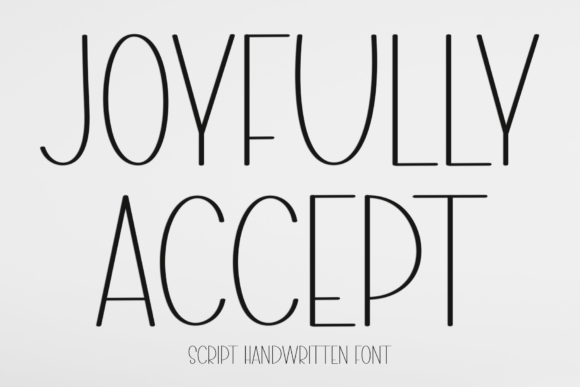
Discover the Versatility of Joyfully Accept Font: A Modern Sans-Serif Marvel
In the realm of typography, fonts play a pivotal role in conveying messages, evoking emotions, and enhancing visual appeal. Among the myriad of fonts available, Joyfully Accept stands out as a cool and modern sans-serif font that has been gaining attention for its versatility and aesthetic appeal. Whether you’re a craft enthusiast, a digital designer, a presenter, or someone who loves creating personalized greeting cards, Joyfully Accept has the potential to become your go-to font for various occasions.
What is Joyfully Accept Font?
Joyfully Accept is a contemporary sans-serif font designed to bring a touch of modernity and joy to your projects. Its clean lines, balanced proportions, and friendly demeanor make it an excellent choice for a wide range of applications. This font is not just a tool for communication; it’s an element that can add personality and emotion to your work.
Key Features of Joyfully Accept Font
- Modern Sans-Serif Design: Joyfully Accept boasts a sleek and modern design that fits well with current trends. Its sans-serif nature gives it a clean and uncluttered look, making it highly legible across various mediums.
- Versatility: One of the standout features of Joyfully Accept is its versatility. It can be used in a multitude of projects, ranging from digital designs and presentations to crafts and greeting cards.
- Emotional Connection: The font has a friendly and approachable feel, which can help create an emotional connection with your audience. This makes it particularly useful for projects where you want to convey warmth and positivity.
- Ease of Use: Joyfully Accept is designed to be user-friendly. It is easy to read and works well in both large and small sizes, making it suitable for a variety of applications.
Applications of Joyfully Accept Font
The versatility of Joyfully Accept font makes it suitable for numerous applications. Here are some of the areas where this font truly shines:
- Crafts: For craft enthusiasts, Joyfully Accept can add a modern touch to handmade projects. Whether you’re creating DIY signs, decorating journals, or making personalized gifts, this font can enhance the aesthetic appeal of your crafts.
- Digital Design: In the realm of digital design, typography plays a crucial role. Joyfully Accept can be used in social media graphics, blog posts, and website designs to give your content a fresh and contemporary look.
- Presentations: For presenters, using a font that is clear, readable, and engaging is vital. Joyfully Accept can help make your presentations more impactful by adding a modern and professional touch.
- Greeting Cards: When it comes to creating personalized greeting cards, the font you choose can significantly affect the overall feel of the card. Joyfully Accept’s friendly and approachable design makes it an excellent choice for birthday cards, thank you notes, and other personal messages.
Tips for Using Joyfully Accept Font Effectively
To make the most out of Joyfully Accept font, consider the following tips:
- Pair it with Complementary Fonts: While Joyfully Accept is versatile on its own, pairing it with complementary fonts can enhance its appeal. Choose fonts that have a similar weight and style to create a cohesive look.
- Adjust Size and Color: Depending on your project’s requirements, you may need to adjust the size and color of the font. Joyfully Accept works well in various sizes and can be easily customized to fit your design.
- Use it for Headers and Body Text: This font is suitable for both headers and body text. Use it consistently throughout your project to maintain a uniform look.
- Experiment with Effects: Don’t be afraid to experiment with different effects such as shadows, outlines, or gradients to give your text a unique look.
Joyfully Accept font is a modern sans-serif marvel that can elevate your projects with its clean design and friendly appeal. Whether you’re working on crafts, digital designs, presentations, or greeting cards, this font offers the versatility and aesthetic appeal you need. By incorporating Joyfully Accept into your projects, you can create visually appealing and emotionally engaging content that resonates with your audience.
Future of Typography with Joyfully Accept
The future of typography is constantly evolving, with new fonts and styles emerging regularly. Joyfully Accept represents a modern approach to sans-serif fonts, offering a blend of simplicity and personality. As design trends continue to shift, fonts like Joyfully Accept will likely play a significant role in shaping the visual landscape.